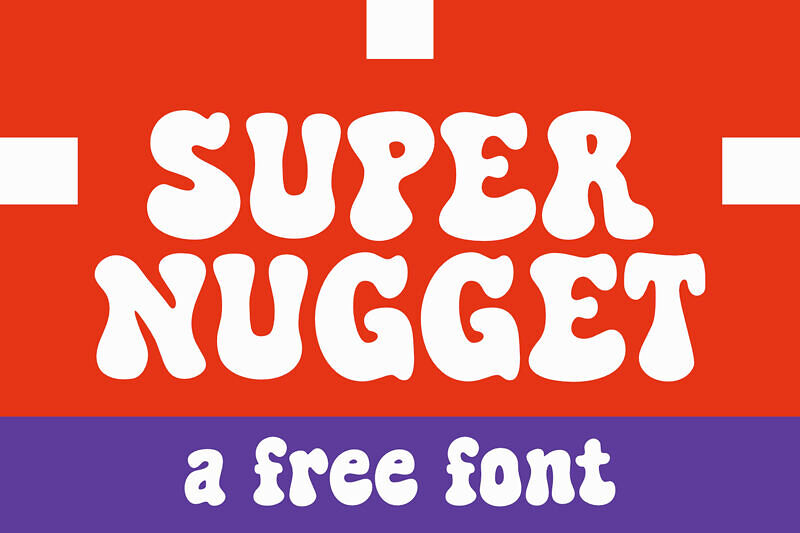
Super Nugget is a fun groovy display font with bold, rounded lettering and a retro-inspired personality. Its playful curves and chunky style make it perfect for posters, logos, packaging, social media graphics, and creative branding projects that need a cheerful vintage vibe.
The font delivers strong visual impact while keeping a friendly and approachable feel, ideal for eye-catching headlines and nostalgic designs.